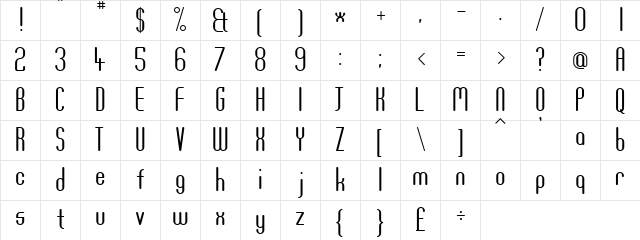
DF667 Plastic Jesus Regular
Design Context for DF667 Plastic Jesus Typeface
DF667 Plastic Jesus is a composed and adaptable typeface that performs quietly and consistently across a wide range of design contexts.